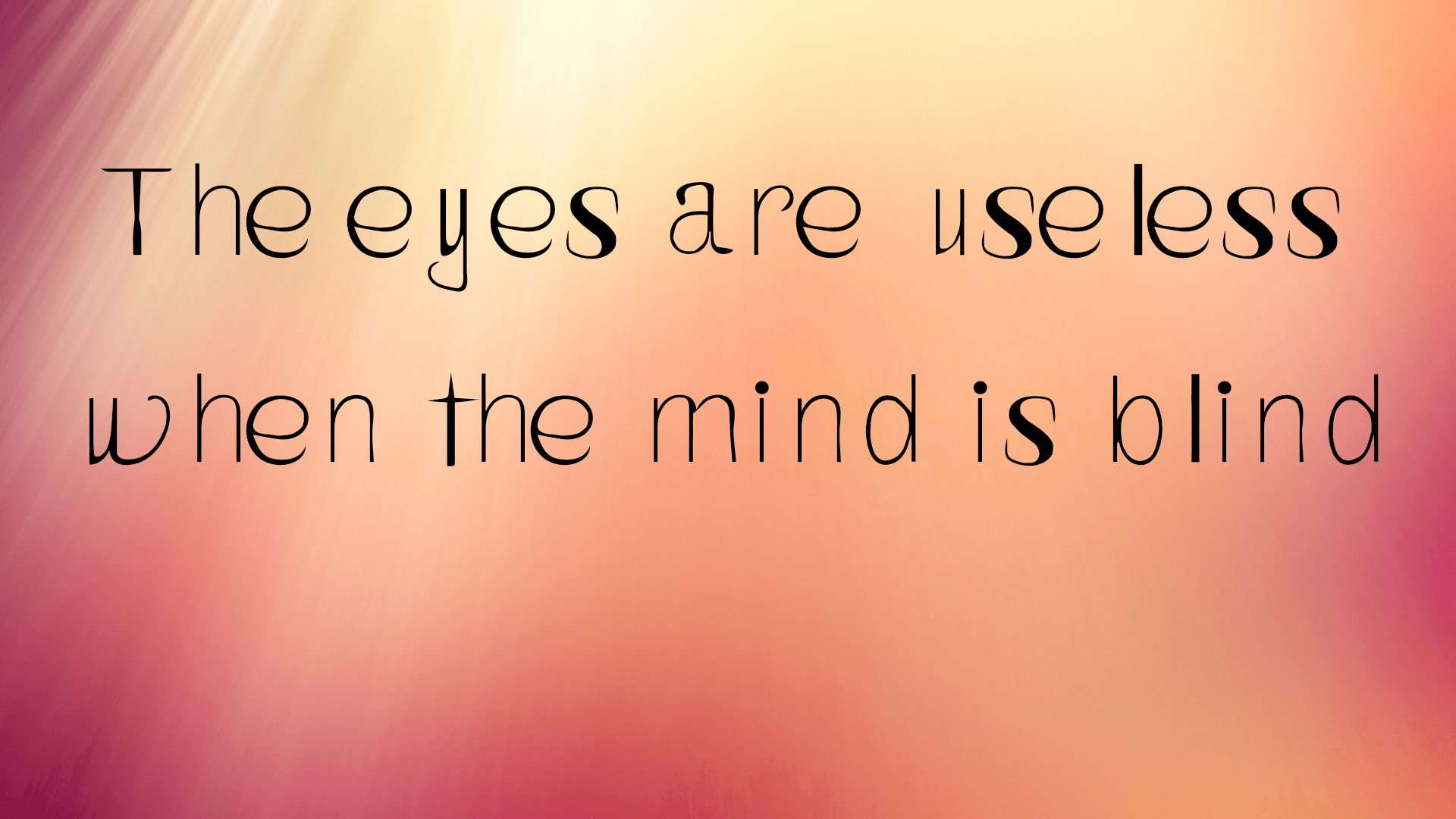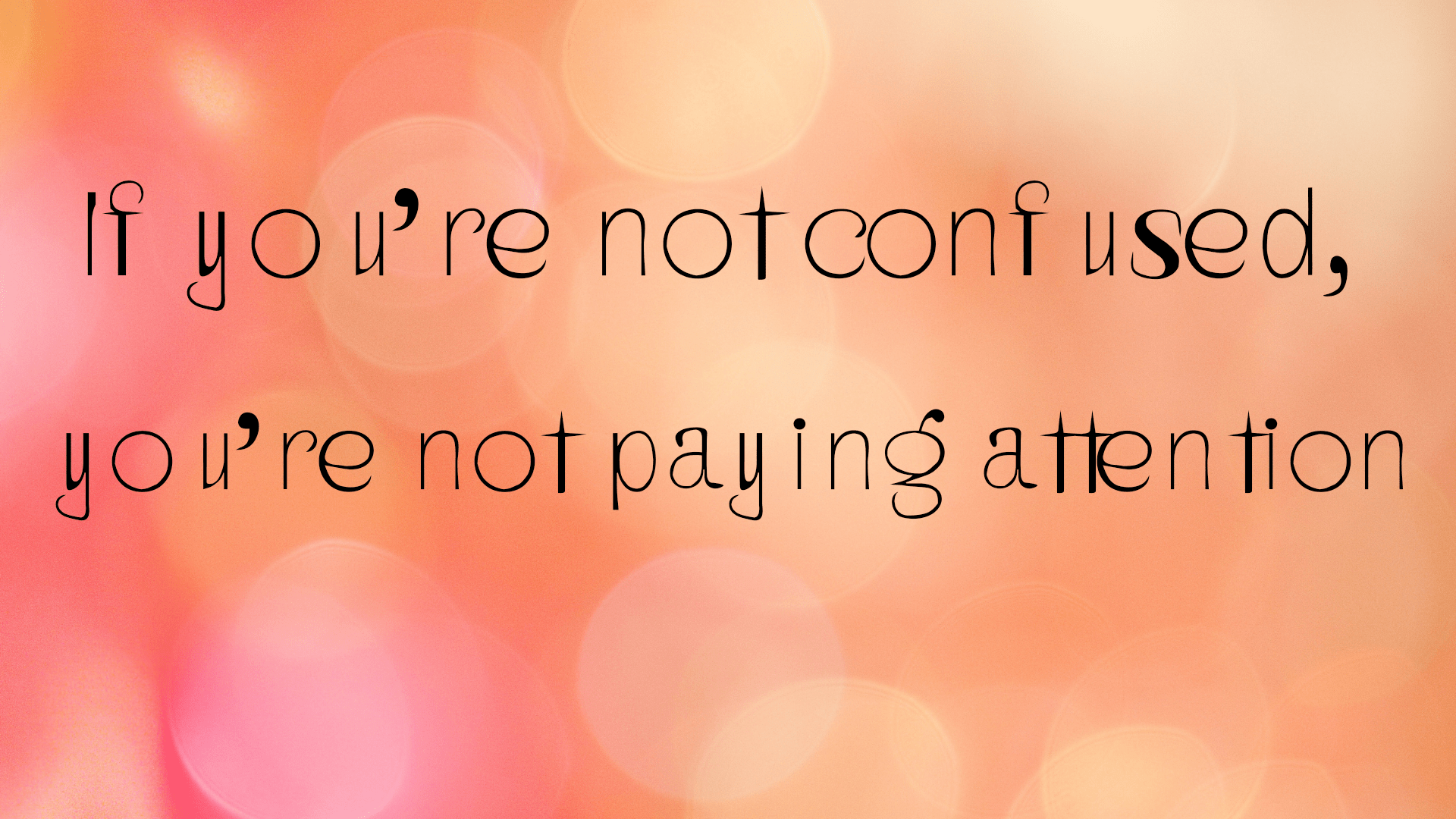
Traino Font
Traino Display Font
This stylish typeface is designed by the most popular designer Font Forestry. This typeface contains stylish and unique glyphs and more than 75 different characters including uppercase, lowercase, numerals, punctuations, and some special characters too that are very suitable for any beautiful design and text design.
Many designers and Corporations have always chosen creative and artistic handwritten typefaces for their valuable projects and Traino is also the most reliable font, which has advanced features and many unique styles that can bring versatility in any type of designing field. This typeface is a very ideal and demandable font of many reputed companies and popular designers and they are always using this typeface in their regular projects. This typeface is the most considerable font for professional card designs and is attractive signatures.
Look to the characters of this typeface and especially its unique “f” style, and some bold slashes of its characters which are very unique from other handwritten typefaces, that’s why it has taken all the attraction of the world’s designers. This typeface is available in both formats such as OpenType and TrueType and you can download this typeface free of cost that is limited up to your personal designing projects. The Font can be easily used with other fonts like Futura font. You can use both fonts in your graphic design projects to make them more unique.
You can utilize this handwritten typeface with the pairing of many other fonts to create stylish website designs such as logo designs, web page designs, banners, brochure designs, lengthy paragraphs, and many more. You can also choose this typeface for your attractive headlines and titles. If you have a YouTube channel then you can also use this typeface your thumbnails and post descriptions.
Besides, it can also be used for your printing projects like t-shirt designs, impressive hotel/buildings/casino names, mug designs, business cards, wedding cards, and many more. You can also make your signatures more professional with the use of this typeface as well as general reports, documentation purposes, magazines, and daily newspapers, post descriptions, and plenty of more.